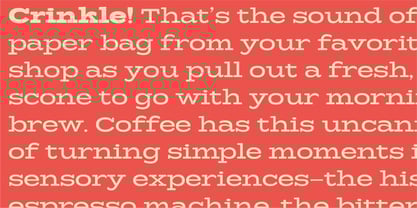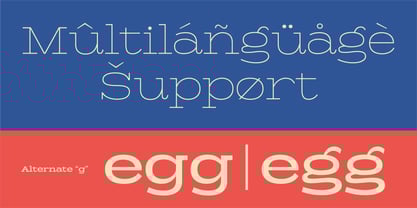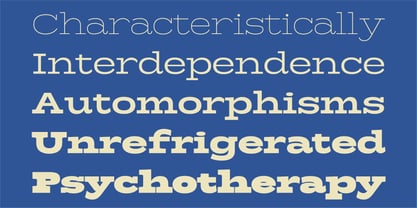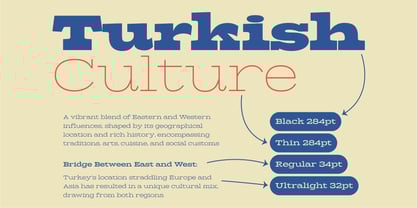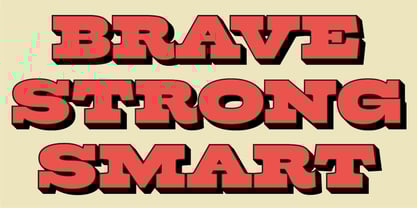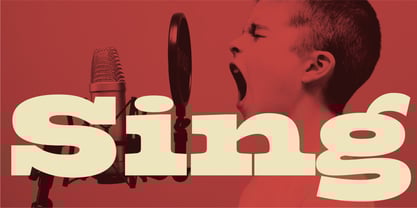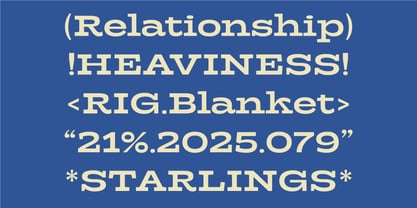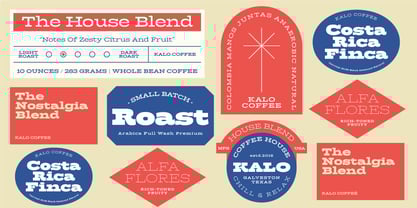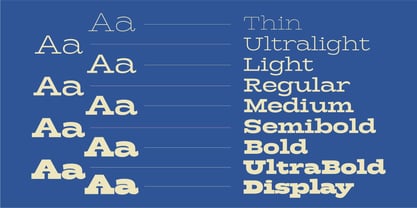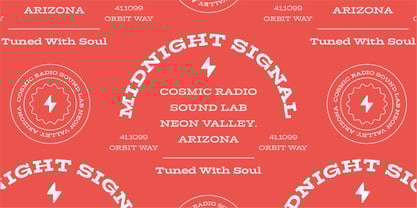
Girk
by Adam Fathony
The Girk Font Family was designed by Adam Fathoni Haris and published by Adam Fathony. Girk contains 10 styles and family package options. More about this family
Girk
A Modern Extended Display Slab Serif
Bold, confident, and full of personality, Girk is a versatile slab serif display typeface crafted for standout headlines, vibrant identities, and expressive packaging. Designed with an extended width and modern tone, it balances retro charm with forward-thinking precision.
Key Features:
• Variable Weight Axis — Seamlessly transition from Thin to UltraBold or everything in between.
• Extended Display Proportions — Wide letterforms offer bold presence and visual authority.
• Multilingual Support — Full range of accented characters, ideal for global brands and editorial design.
• Alternate “g” — Switch between stylistic options to tailor personality and readability.
• All-Caps & Small-Caps Ready — Works effortlessly in uppercase compositions with optional lowercase flair.
• Font Family Versatility — Includes Thin, Light, Regular, Bold, Display, and everything in between.
Perfect for coffee packaging, editorial layouts, signage, vintage-inspired branding, and experimental web type — Girk is built to speak loudly, clearly, and with unmistakable flavor.
Designers: Adam Fathoni Haris
Foundry: Adam Fathony